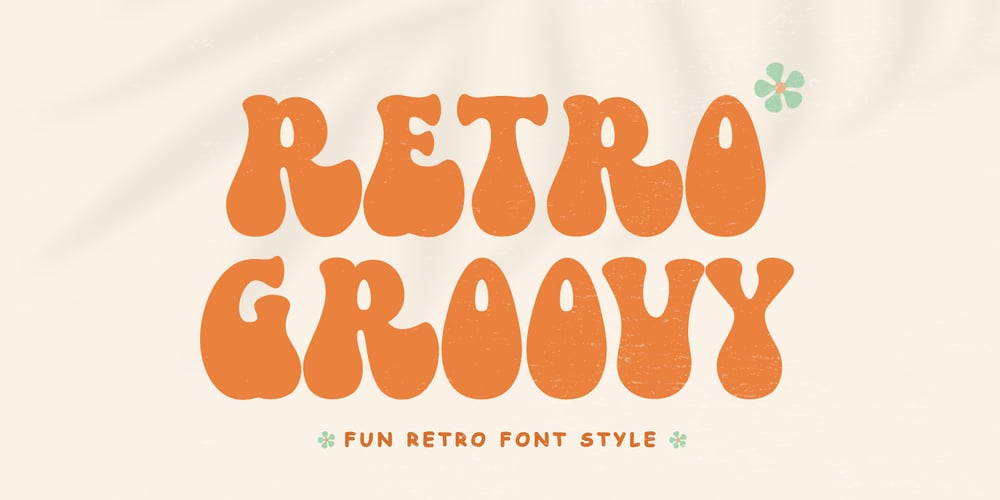
Retro Groovy Font Family was designed by Burhan Afif and published by HansCo. Retro Groovy contains 4 styles and family package options. Retro Groovy Font is a retro and bold display font. Use this display font to add that special retro touch to any design idea you can think of!. Masterfully designed to become a true favorite, this font has the potential to bring each of your creative ideas to the highest level!Very suitable for logotype, Stickers, Packaging design, Cricut Project, headlines, brand identity, t shirt or apparel industry, posters, magazines, books, YouTube, Instagram, websites, or any of your creative design projects.Tutorial how to Install & use Alternate / Special Character : https://hanscostudio.com/tutorial/Enjoy!